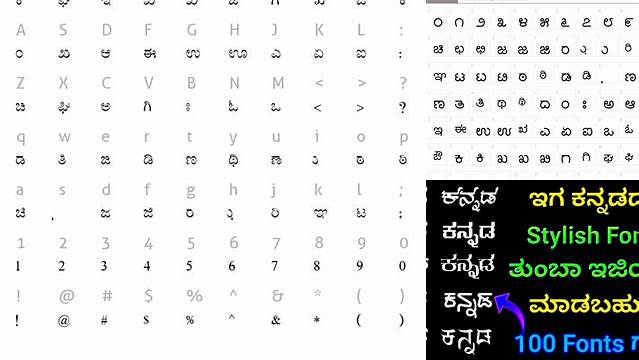
Nudi Font Kannada: What's the Big Deal?
So, what exactly is Nudi Font Kannada, and why is it so popular? Well, Nudi is a widely used font encoding standard for the Kannada script. It's basically the go-to choice for anyone working with Kannada text on computers. The reason it's so popular is that it's been around for a long time and has become a standard for Kannada typing. This means that a lot of older documents and websites use Nudi fonts, so if you want to be able to read and work with those files, you're going to need to have Nudi fonts installed on your system. Plus, many people are just comfortable with the layout and style of Nudi fonts, so they continue to use them for their writing and design projects.
Using Nudi Font Kannada provides a consistent and familiar look, making it easier for readers to engage with your content. Imagine if every Kannada document used a different font – it would be a chaotic mess! Nudi helps maintain uniformity and readability. And that's why it's super important, guys.
Another common problem is that the fonts might look blurry or pixelated. This can happen if the font file is corrupted or if the font size is too small. Try downloading the font again from a different source and see if that helps. You can also try increasing the font size to see if that improves the clarity. If you're still having trouble, there are plenty of online forums and communities where you can ask for help. Just describe your problem and someone will usually be able to point you in the right direction.
The Importance of Using Nudi Fonts Correctly
Using Nudi Fonts Kannada correctly ensures that your Kannada text is displayed properly and is easily readable. Incorrect usage can lead to garbled text, which can be frustrating for your audience. When writing in Kannada, make sure that your software supports Unicode encoding, which is essential for displaying Kannada characters correctly. Also, select the appropriate Nudi font for your text. Different Nudi fonts have different styles, so choose one that suits the overall design of your document. Proper font usage not only enhances readability but also adds a professional touch to your work. Remember, guys, presentation matters!
Nudi Fonts and Unicode: What's the Connection?
So, you might have heard about Unicode in the context of Nudi fonts, but what exactly is it? Unicode is a universal character encoding standard that assigns a unique number to every character in every language. This allows computers to display text correctly, no matter what language it is. Nudi fonts, especially newer versions, are often designed to work with Unicode. This means that they can display a wide range of Kannada characters accurately. When you're using Nudi fonts, make sure your software is set to use Unicode encoding (usually UTF-8). This will ensure that your Kannada text is displayed correctly and that it's compatible with other systems. It's like making sure everyone's speaking the same language, digitally speaking!
Exploring Different Styles of Nudi Fonts
Did you know that there are different styles of Nudi fonts? Just like English has Arial, Times New Roman, and Comic Sans, Kannada has its own variations. Some Nudi fonts are more formal and suitable for professional documents, while others are more casual and playful. Experiment with different styles to find the ones that you like best and that fit the tone of your project. You might find a bold and impactful font for headings or a softer, more elegant font for body text. Playing around with different styles can add a lot of personality and visual interest to your Kannada writing. So go ahead and explore, guys!
Creating Stunning Designs with Nudi Fonts
Nudi fonts aren't just for writing documents; they can also be used to create stunning designs. Whether you're designing a poster, a website, or a social media graphic, Nudi fonts can add a touch of Kannada culture and authenticity to your work. When designing with Nudi fonts, consider the overall color scheme, layout, and typography. Use contrasting colors to make your text stand out and experiment with different font sizes and styles to create visual hierarchy. You can also combine Nudi fonts with images and illustrations to create eye-catching designs that grab attention. The possibilities are endless, so get creative and have fun!
Nudi Font Keyboard Layouts: A Quick Guide
Typing in Kannada using Nudi fonts can be a bit tricky if you're not familiar with the keyboard layout. Unlike English keyboards, Kannada keyboards have different layouts that map Kannada characters to different keys. There are several Nudi keyboard layouts available, such as the Nudi Typewriter layout and the Nudi Phonetic layout. The Typewriter layout is based on the traditional typewriter keyboard, while the Phonetic layout maps Kannada characters to keys based on their phonetic sounds. Choose the layout that you're most comfortable with and practice typing regularly to improve your speed and accuracy. There are also online typing tutors and games that can help you learn the Nudi keyboard layout. Practice makes perfect, guys!
The Evolution of Nudi Fonts Over Time
Nudi fonts have come a long way since their early days. Originally, Nudi fonts were designed for specific operating systems and applications. This meant that they weren't always compatible with other systems. However, as technology has evolved, Nudi fonts have become more standardized and cross-platform compatible. Newer versions of Nudi fonts are designed to work with Unicode, which allows them to be used on a wider range of devices and platforms. The evolution of Nudi fonts has made it easier for people to write and read Kannada text on computers and mobile devices. It's a testament to the ongoing efforts to preserve and promote the Kannada language in the digital age.
Nudi Fonts for Different Operating Systems
Whether you're using Windows, Mac, or Linux, you can use Nudi fonts on your computer. The process for installing and using Nudi fonts is slightly different on each operating system, but it's generally pretty straightforward. On Windows, you can download the font files, right-click on them, and select "Install." On a Mac, you can open the font files with Font Book and click "Install Font." On Linux, you can copy the font files to the /usr/share/fonts directory. Once the fonts are installed, they should be available in your word processors, design software, and other applications. Just make sure to select the correct Nudi font in your settings. No matter what operating system you're using, you can enjoy the beauty and versatility of Nudi fonts.
Nudi Fonts and Social Media: Express Yourself in Kannada
Social media is a great way to express yourself in Kannada using Nudi fonts. Whether you're posting updates, sharing photos, or commenting on other people's posts, Nudi fonts can help you communicate your thoughts and feelings in your native language. However, not all social media platforms support Kannada fonts natively. Some platforms might display Kannada text as boxes or question marks. To avoid this, you can use Unicode-compatible Nudi fonts and make sure your device and browser support Unicode encoding. You can also use third-party apps or websites that allow you to type in Kannada and then copy and paste the text into your social media posts. With a little bit of effort, you can share your Kannada voice with the world.
How to Convert Existing Documents to Nudi Fonts
If you have existing documents that use non-Nudi fonts, you can convert them to Nudi fonts. This can be useful if you want to standardize your documents or make them compatible with other systems. There are several ways to convert documents to Nudi fonts. You can use a font conversion tool, which is a software program that automatically replaces non-Nudi fonts with Nudi fonts. You can also manually replace the fonts in your document by selecting the text and choosing a Nudi font from the font menu. However, this can be time-consuming if you have a large document. Before converting your documents, make sure to back them up in case something goes wrong. With a little bit of effort, you can convert your documents to Nudi fonts and ensure that they are displayed correctly.
Nudi Fonts for Web Design: Creating Kannada Websites
Nudi fonts are essential for creating Kannada websites. If you want to display Kannada text on your website, you need to use Nudi fonts that are compatible with web browsers. There are several Nudi fonts that are specifically designed for web use, such as Nudi 01e and Nudi 01i. These fonts are optimized for readability and performance on the web. When using Nudi fonts on your website, make sure to specify the font family in your CSS stylesheet. This will tell the browser which font to use to display the Kannada text. You should also use Unicode encoding (UTF-8) to ensure that the Kannada characters are displayed correctly. With Nudi fonts, you can create beautiful and functional Kannada websites that reach a global audience.
The Legal Aspects of Using Nudi Fonts
When using Nudi fonts, it's important to be aware of the legal aspects. Nudi fonts are typically licensed under different agreements, which specify how you can use the fonts. Some Nudi fonts are free for personal and commercial use, while others are only free for personal use. If you plan to use Nudi fonts for commercial purposes, such as in a logo or on a product packaging, make sure to check the license agreement to ensure that you have the right to do so. You should also respect the copyright of the font designer and not distribute the fonts without permission. By understanding and respecting the legal aspects of using Nudi fonts, you can avoid any potential legal issues.
Nudi Fonts and Email: Sending Kannada Emails
Sending emails in Kannada using Nudi fonts can be a great way to communicate with friends, family, and colleagues who speak Kannada. However, not all email clients support Kannada fonts natively. Some email clients might display Kannada text as boxes or question marks. To avoid this, you can use Unicode-compatible Nudi fonts and make sure your email client supports Unicode encoding. You can also use an email client that is specifically designed for multilingual communication. When composing your email, type the Kannada text using a Nudi keyboard layout and select a Nudi font from the font menu. Before sending your email, send a test email to yourself to make sure that the Kannada text is displayed correctly. With a little bit of effort, you can send and receive Kannada emails with ease.
Resources for Learning Kannada Typography
Learning Kannada typography can help you improve the readability and aesthetics of your Kannada writing. There are several resources available that can help you learn about Kannada typography, such as books, websites, and online courses. Some resources focus on the history and evolution of Kannada script, while others focus on the principles of typography and design. You can also find tutorials and articles that teach you how to use different Nudi fonts and create visually appealing layouts. Experiment with different fonts, sizes, and styles to see what works best for your projects. By investing time in learning Kannada typography, you can create more professional and engaging Kannada content.
The Future of Nudi Fonts: What to Expect
The future of Nudi fonts looks bright. As technology continues to evolve, Nudi fonts will likely become more standardized and cross-platform compatible. Newer versions of Nudi fonts will likely support Unicode and other advanced features, making it easier for people to write and read Kannada text on computers and mobile devices. There will also likely be more variations of Nudi fonts available, catering to different design styles and preferences. The development of Nudi fonts will continue to be driven by the needs of the Kannada-speaking community and the desire to preserve and promote the Kannada language in the digital age.
Nudi Font Alternatives: Exploring Other Kannada Fonts
While Nudi fonts are widely used, there are also other Kannada fonts available. Exploring these alternatives can give you more options for your design and writing projects. Some popular Kannada font alternatives include Tunga, Kedage, and Lohit Kannada. These fonts have different styles and characteristics, so you can choose the one that best suits your needs. Tunga is a classic Kannada font that is known for its readability, while Kedage is a more modern font with a sleek design. Lohit Kannada is a free and open-source font that is available under the SIL Open Font License. Experimenting with different Kannada fonts can help you find the perfect font for your project.
Common Mistakes to Avoid When Using Nudi Fonts
Using Nudi fonts correctly is essential for ensuring that your Kannada text is displayed properly. However, there are several common mistakes that people make when using Nudi fonts. One common mistake is using non-Unicode fonts, which can lead to garbled text. Another mistake is using the wrong keyboard layout, which can result in incorrect characters. It's also important to choose the right font size and style for your project. Using a font that is too small or too large can make your text difficult to read. Before publishing your Kannada content, always proofread it carefully to make sure that there are no errors. By avoiding these common mistakes, you can ensure that your Kannada text looks professional and polished.
How Nudi Fonts Contribute to Kannada Language Preservation
Nudi fonts play a significant role in preserving the Kannada language. By providing a standardized way to write Kannada text on computers and mobile devices, Nudi fonts make it easier for people to communicate in Kannada online. This helps to keep the Kannada language alive and relevant in the digital age. Nudi fonts also make it easier to create Kannada content, such as websites, books, and educational materials. This helps to promote Kannada language and culture to a wider audience. The development and use of Nudi fonts are a testament to the ongoing efforts to preserve and promote the Kannada language for future generations.
Optimizing Nudi Fonts for Print Media
When using Nudi fonts for print media, such as books, magazines, and posters, it's important to optimize them for high-quality printing. This involves choosing the right font size, resolution, and color settings. For body text, a font size of 10-12 points is generally recommended. For headings, you can use a larger font size to make them stand out. It's also important to use a high resolution (300 DPI or higher) to ensure that the fonts are sharp and clear. When printing in color, make sure to use CMYK color mode, which is the standard for print media. Before sending your files to the printer, always proofread them carefully to make sure that there are no errors. By optimizing Nudi fonts for print media, you can create visually appealing and professional-looking printed materials.
Nudi Fonts and Accessibility: Making Kannada Content Inclusive
Using Nudi fonts in an accessible way is essential for making Kannada content inclusive to people with disabilities. This involves choosing fonts that are easy to read for people with visual impairments, such as those with low vision or dyslexia. It's also important to provide alternative text for images and other non-text elements, so that people who use screen readers can understand the content. When designing websites, make sure to use semantic HTML and ARIA attributes to improve accessibility. You can also use tools like WAVE to check your website for accessibility issues. By making Kannada content accessible, you can ensure that everyone has the opportunity to access and understand the information.
The Importance of Regular Updates for Nudi Fonts
Keeping your Nudi fonts up to date is important for ensuring that they work properly and that you have access to the latest features and improvements. Font developers regularly release updates to fix bugs, improve performance, and add new characters. To update your Nudi fonts, you can download the latest versions from the font developer's website or from a reputable font repository. Before installing the updates, make sure to back up your existing fonts in case something goes wrong. After installing the updates, restart your computer to make sure that the changes take effect. By keeping your Nudi fonts up to date, you can enjoy a better user experience and ensure that your Kannada content is displayed correctly.
Integrating Nudi Fonts with Design Software
Integrating Nudi fonts with design software, such as Adobe Photoshop, Illustrator, and InDesign, can help you create stunning Kannada designs. To integrate Nudi fonts with your design software, you need to install the fonts on your computer. Once the fonts are installed, they should be available in the font menu of your design software. When creating your designs, make sure to choose a Nudi font that is appropriate for the overall style and tone of your project. You can also experiment with different font sizes, styles, and colors to create visually appealing layouts. By integrating Nudi fonts with design software, you can create professional-looking Kannada designs that capture the essence of the Kannada language and culture.
Tips for Choosing the Right Nudi Font for Your Project
Choosing the right Nudi font for your project is essential for ensuring that your Kannada content looks professional and polished. Here are some tips to help you choose the right Nudi font: Consider the overall style and tone of your project. Are you creating a formal document or a casual design? Choose a font that matches the tone of your project. Think about the readability of the font. Is the font easy to read on screen and in print? Choose a font that is legible and clear. Experiment with different font sizes and styles to see what works best for your project. Don't be afraid to try different fonts until you find the perfect one. Get feedback from others. Ask your friends, family, or colleagues for their opinion on the fonts you've chosen. By following these tips, you can choose the right Nudi font for your project and create visually appealing Kannada content.
Advanced Techniques for Working with Nudi Fonts
Once you're comfortable with the basics of using Nudi fonts, you can explore some advanced techniques to take your Kannada typography to the next level. These techniques include kerning, tracking, and leading. Kerning is the process of adjusting the space between individual characters to improve readability. Tracking is the process of adjusting the overall spacing between all characters in a line of text. Leading is the process of adjusting the vertical space between lines of text. By mastering these techniques, you can create more refined and visually appealing Kannada typography. There are many online resources and tutorials that can help you learn about these advanced techniques.
The Role of Nudi Fonts in Digital Kannada Literacy
Nudi fonts play a crucial role in promoting digital Kannada literacy. By providing a standardized way to write Kannada text on computers and mobile devices, Nudi fonts make it easier for people to learn how to read and write in Kannada online. This is especially important for people who live outside of Karnataka and may not have access to traditional Kannada language resources. Nudi fonts also make it easier to create Kannada educational materials, such as online courses, tutorials, and interactive games. By promoting digital Kannada literacy, Nudi fonts help to ensure that the Kannada language continues to thrive in the digital age. It helps bridge the gap, allowing everyone to participate in the digital world while staying connected to their roots.